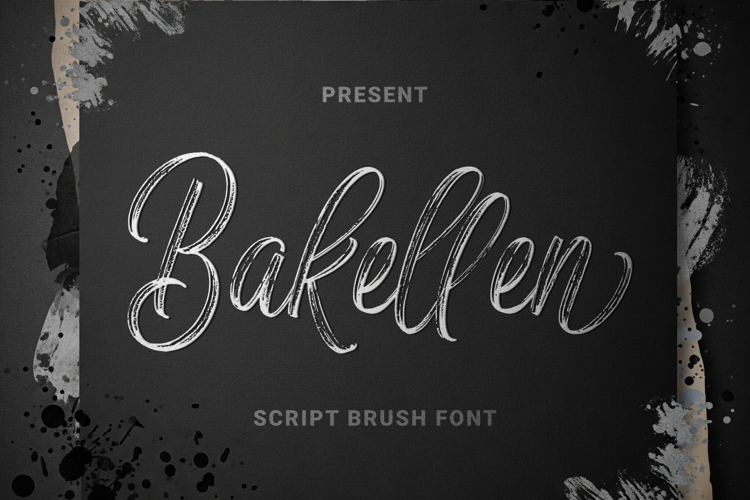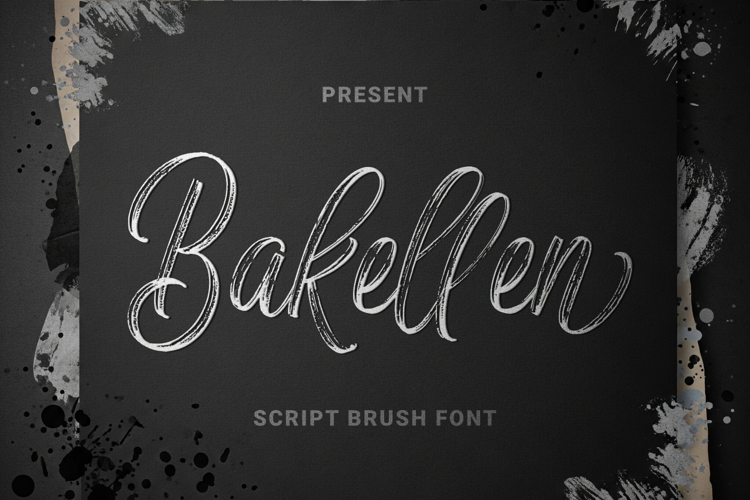
Bakellen is a script brush font that blends the beauty of hand-brushed strokes with a touch of modern elegance. Each letter features authentic brush textures, giving a natural and artistic feel to any design. Perfect for branding, wedding invitations, quotes, product packaging, posters, and other creative projects that need a warm yet professional touch. With its graceful and dynamic style, Bakellen is ready to make your work stand out and leave a lasting impression.